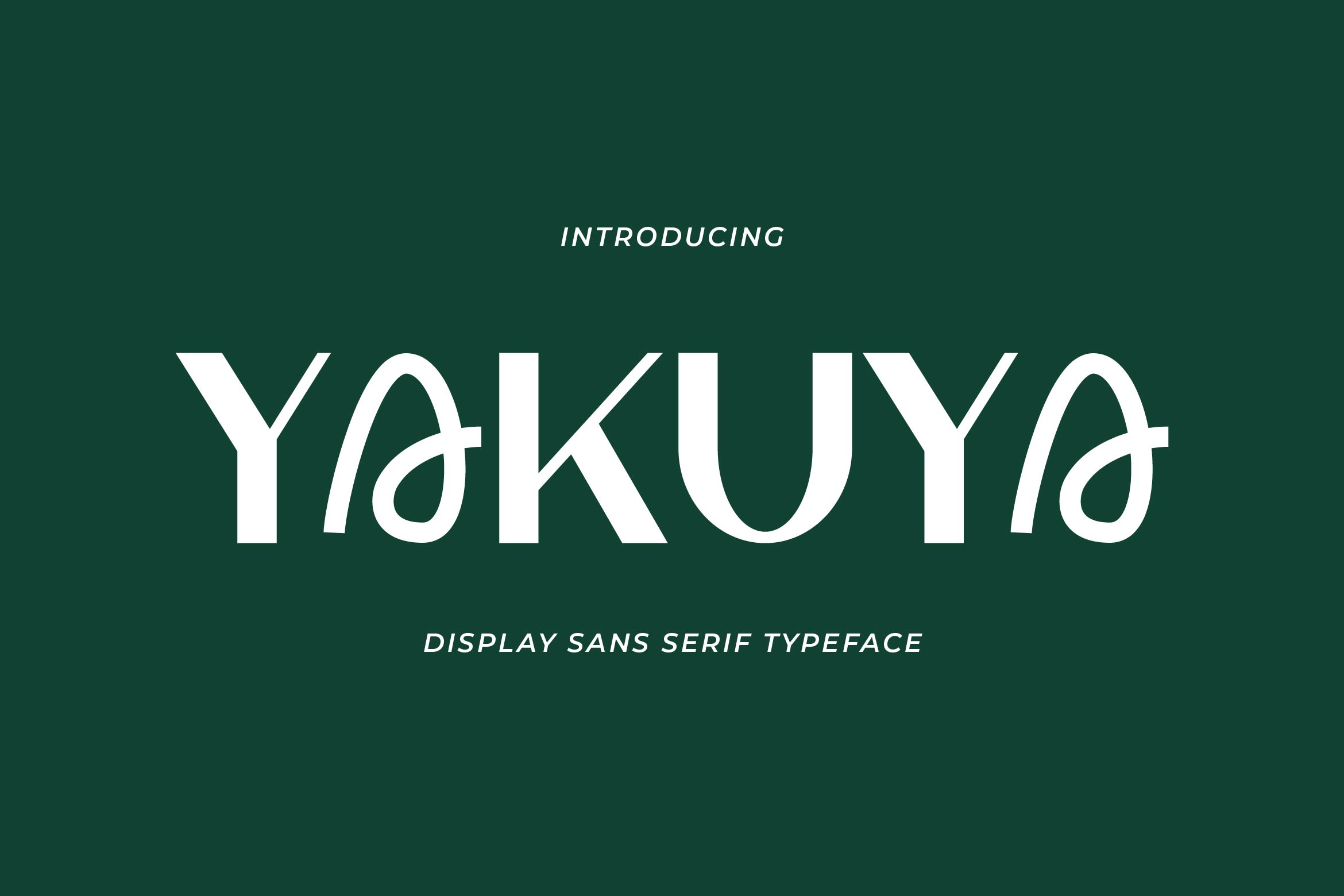
- Yakuya Creative Display Font
Yakuya is a modern sans serif font that blends creativity with luxurious elegance. Featuring clean lines, refined curves, and distinctive character shapes, Yakuya is designed to bring a premium feel to logos, fashion branding, product packaging, editorials, and high-end digital projects.
Its creative construction makes it stand out, while the minimalist elegance ensures timeless versatility. Yakuya works beautifully for luxury brands, lifestyle content, invitations, or visual identities that demand both sophistication and originality.
The font includes uppercase and lowercase letters, numerals, punctuation, multilingual support, and stylistic alternates for creative flexibility. Its sleek proportions also pair well with script or serif fonts, giving you endless design possibilities.
Elevate your typography with Yakuya — the creative luxury sans serif font that combines modern innovation with refined style.